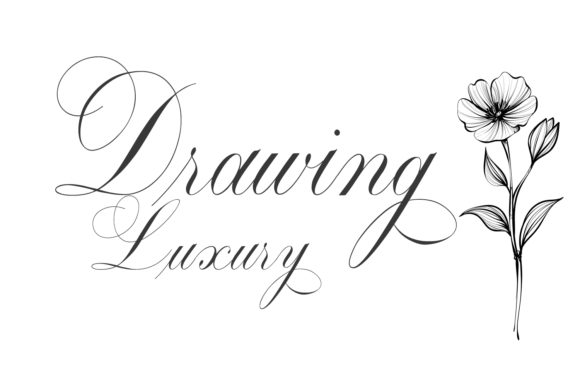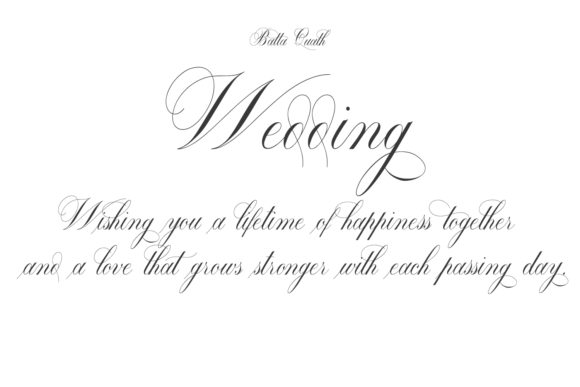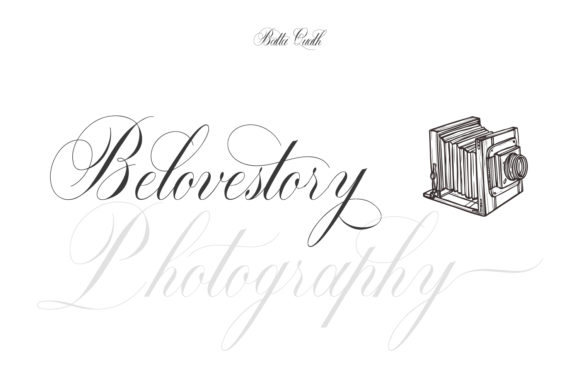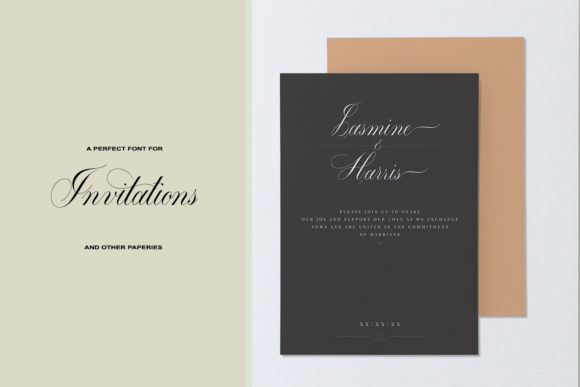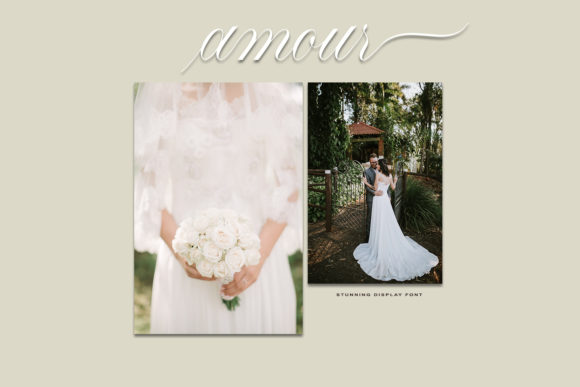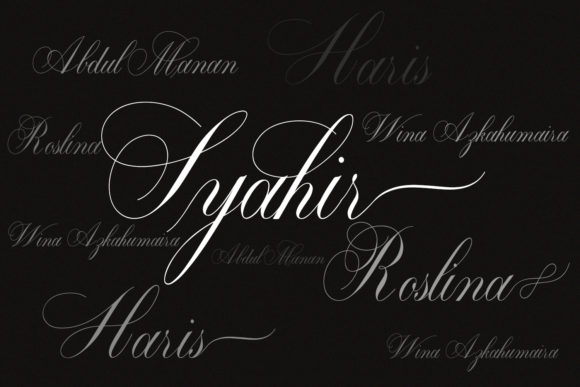
Discover the Timeless Charm of Batta Quath Font
Have you ever stumbled upon a font that makes you feel like you’ve discovered a hidden treasure? That’s exactly what happens when you lay eyes on Batta Quath Font. As a designer, you know how a single font can elevate an entire project, and this stunning script font is no exception.
Batta Quath Font is a masterful blend of classic calligraphy and modern elegance, featuring a varying baseline, smooth lines, and gorgeous glyphs. It’s perfect for creating beautiful wedding invitations, stunning stationary art, eye-catching social media posts, and adorable greeting cards. What sets it apart is its PUA encoding, making it easy to access all the amazing glyphs and swashes. With its wealth of special features, including alternate glyphs and ligatures, Batta Quath Font is a valuable addition to any designer’s toolkit.
Batta Quath Font Key Features
- Font Family: Batta Quath is a unique, custom-designed font that can be used for various purposes.
- Unique Characteristics: Batta Quath features a distinctive, hand-drawn style with a mix of organic and geometric elements, making it perfect for designers looking for a unique aesthetic.
- Font Style: Available in Regular and Bold styles, allowing designers to choose the perfect weight for their design project.
Batta Quath Font Review
I recently had the chance to work with the Batta Quath font, and I must say it’s been an interesting experience. Here are my honest thoughts on this unique font.
- The Batta Quath font has a distinctive, quirky feel to it that can add a lot of character to a design. It’s perfect for projects where you want to stand out from the crowd.
- The font is highly legible, even at smaller font sizes. I was impressed by how clear the text remained, even when viewed from a distance.
- The font comes in a range of weights and styles, making it easy to find the perfect fit for your design.
- The font may not be suitable for projects that require a more traditional or formal look. Its quirky nature may not be to everyone’s taste.
- The font’s unique shape and letterforms can make it difficult to pair with other fonts, which may limit its versatility.
- I noticed that the font’s OpenType features can be a bit finicky at times, which may cause issues in certain design applications.
Overall, I think the Batta Quath font is a great addition to any designer’s toolkit. While it may not be for every project, its unique character and versatility make it a valuable resource for designers looking to add some personality to their work.
Tip: Use the Batta Quath Font for headings or titles to add a touch of elegance to your design. Experiment with different font sizes and colors to create a visually appealing effect.
Tip: Use the Batta Quath Font for creating custom logos or graphics. Experiment with different font sizes and colors to create a unique design.
Tip: Use the Batta Quath Font for creating presentations or documents with a professional touch. Experiment with different font sizes and colors to create a visually appealing effect.
The Batta Quath Font is ideal for use in creative projects, such as:
– Logos and branding materials
– Business cards and stationery
– Presentations and documents
– Social media graphics and advertisements
Alternatives to Batta Quath Font
Alice Script
Alice Script is a beautiful, elegant script font ideal for creating invitations, wedding cards, and other formal documents. It features connected letterforms and subtle flourishes, giving it a sophisticated and refined look. When to use: Formal invitations, wedding cards, and other high-end documents.
Comparison to Batta Quath Font: Alice Script has a more elegant and refined look compared to Batta Quath Font, which is more playful and quirky. While Batta Quath Font has a more dynamic feel, Alice Script is better suited for formal and sophisticated designs.